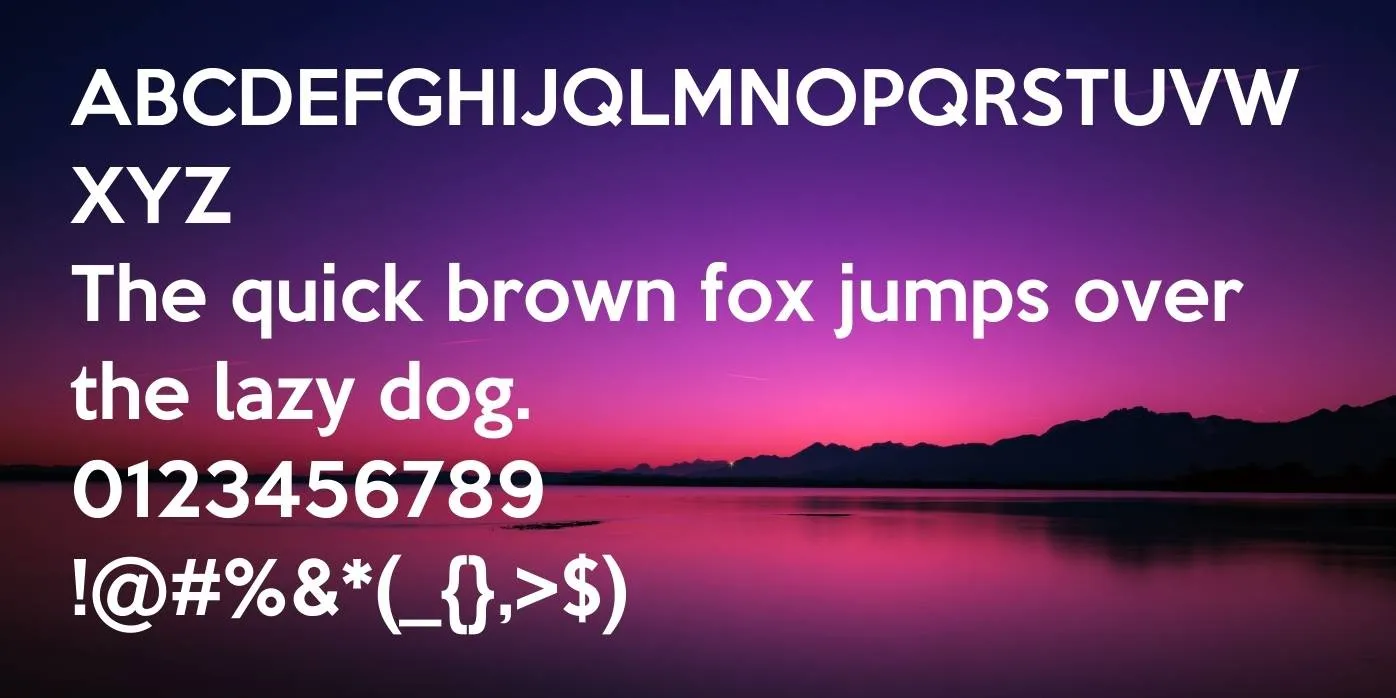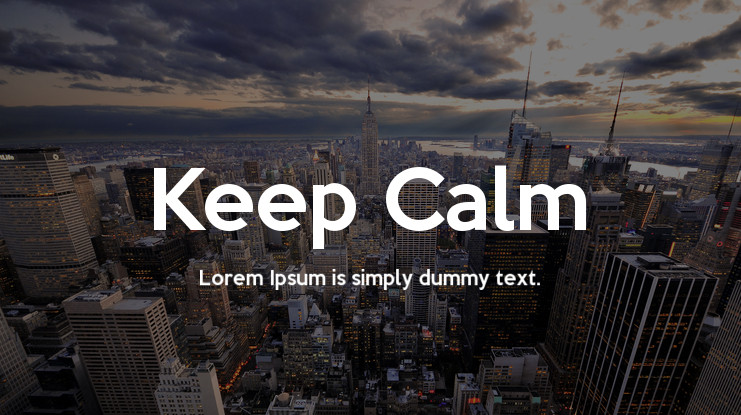
Keep Calm Font
Keep Calm Font is the most used font in the HTML tags. This typeface is utilized in Logo designing. This is also known as the unique text generator. The font belongs to a sans serif typeface family and the designer of this stunning font is “K Type”.
The font family is very common, it has Uppercase letters and Lowercase Letters, Numbers and Numerals, Great Alternates, and use symbols also. It can also support many languages like Yapese, Zulu, Rotokas, Russian, Rusyn, Sami (Inari), Sami (Lule), and many more. The font family is available in only Medium style with Opentype Layout and Truetype Outlines. Keep Calm is a family of fonts based on the famous World War 2 poster that was designed in the age of 1939 but had not released, It after then rediscovered in 2000.